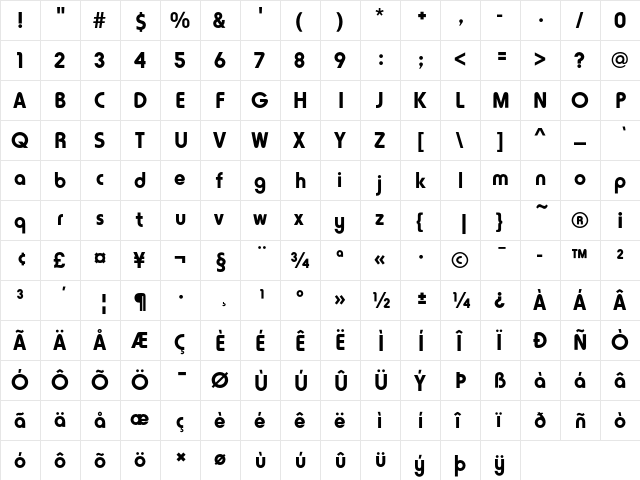
Horatio D Bold
Design Context for Horatio D Typeface
Horatio D takes a measured approach to typography — its balanced proportions and neutral character make it a reliable workhorse for both digital and print work. The heavy weight commands attention and anchors typographic hierarchies.